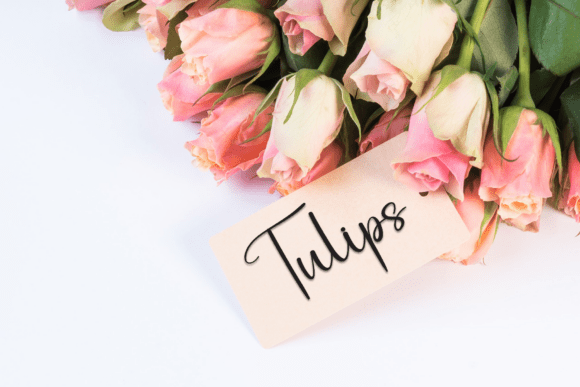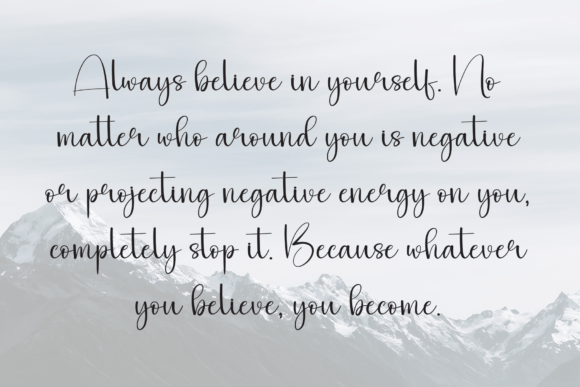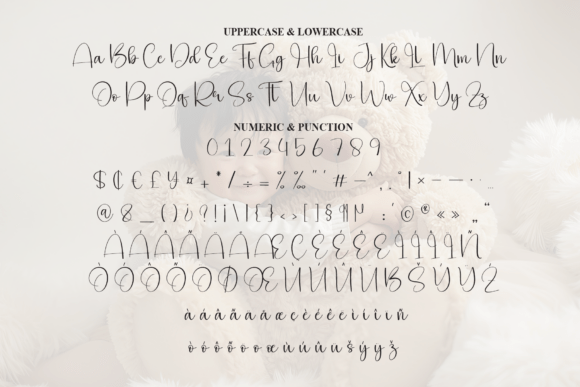
Discover the Magic of Hand-Drawn Design with Baby Lucky Font
Have you ever stared at a blank page, waiting for inspiration to strike? For designers, this moment is all too familiar. But what if you could tap into a world of creative possibility with just one font? Enter Baby Lucky Font, a stylish script font that brings a touch of artistic flair to any design.
Perfect for logos, invitations, packaging, and social media graphics, Baby Lucky Font adds a sophisticated and creative twist to your work. Its fluid brush strokes, dynamic curves, and expressive letterforms evoke the essence of hand-painted calligraphy with a modern twist. With its natural flow and vibrant character, this font delivers both visual impact and versatility, making it a valuable addition to any designer’s toolkit.
Baby Lucky Font Key Features
- Font Family: Baby Lucky Font is a unique, hand-drawn font designed to convey a sense of innocence and playfulness.
- Character Set: Includes a wide range of characters, including uppercase and lowercase letters, numbers, and punctuation marks, making it suitable for various design projects.
- Unique Characteristics: Features a whimsical, cursive design with irregular letterforms and a playful feel, making it perfect for creating eye-catching headlines and titles.
Designer Review: Baby Lucky Font
Overall, I was quite impressed with the Baby Lucky Font. It’s a charming, playful font that’s perfect for child-related projects, from nursery decor to kids’ party invitations.
- ✨ Unique and whimsical design that captures the spirit of childhood
- ✨ Clear and readable even at smaller font sizes
- ✨ Includes a wide range of glyphs and characters, making it suitable for various languages
- ⚠️ Limited to a single style (no bold or italic variations)
- ⚠️ May not be suitable for formal or professional projects due to its playful nature
- ⚠️ Requires manual kerning adjustments to ensure proper spacing between characters
While Baby Lucky Font has its limitations, it’s a great choice for projects that require a lighthearted and youthful vibe. With some careful kerning adjustments, it can add a touch of magic to your designs.
Getting the Most Out of Baby Lucky Font
For the best results, use the Baby Lucky Font in combination with playful graphics and colors. This font is perfect for creating a whimsical and childlike atmosphere.
The Baby Lucky Font is ideal for:
- Baby-themed designs, such as nursery decor and baby shower invitations.
- Children’s book illustrations and educational materials.
- Playful advertisements and marketing materials.